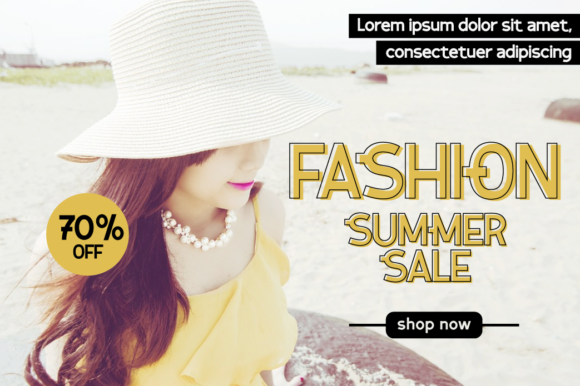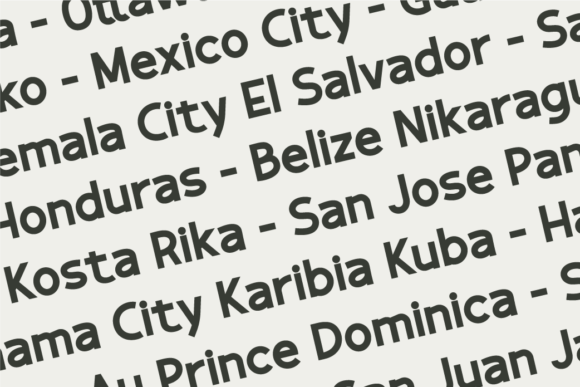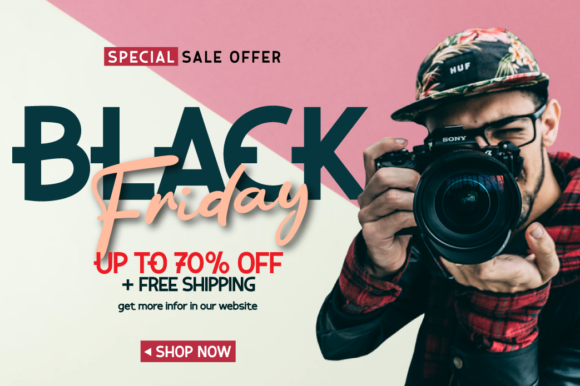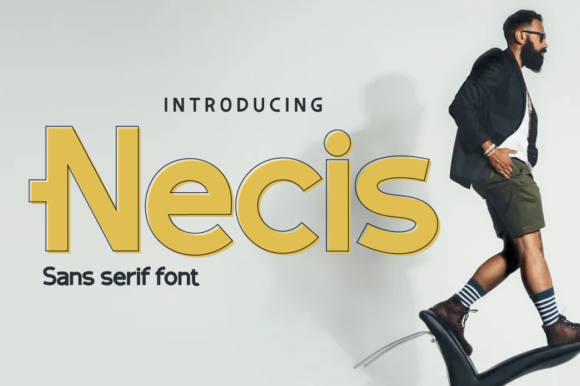
Introduction to Necis Font
Necis is a bold and simple sans serif font.
No matter the topic, this font will be an incredibly asset to your fonts’ library, as it has the potential to elevate any creation .
Key Features of Necis Font
Why Choose Necis Font?
Necis Font offers exceptional quality and versatility, making it a valuable addition to your design toolkit. Whether you’re creating for personal projects or commercial use, Necis Font delivers professional results.